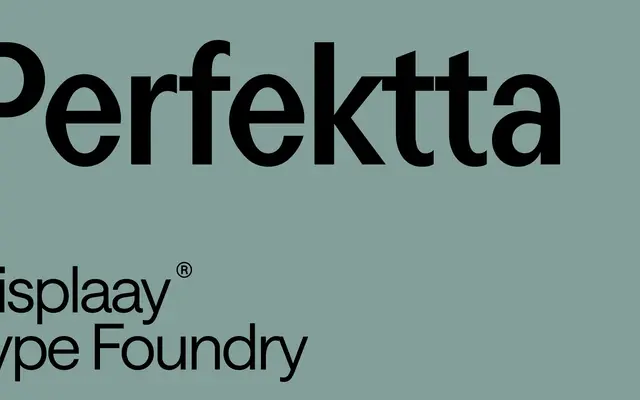
A narrow grotesque with eight weights and matching italics, built around a variable font with weight and slant axes, drawing visual inspiration from Italian road signage.
Perfektta is a condensed sans-serif in sixteen styles running from Thin to Black with full italic companions. The variable font offers two axes — weight and slant — giving designers continuous control across the range. Its showcase imagery leans heavily on Italian traffic signs and road typography, suggesting a design language rooted in functional wayfinding rather than editorial refinement.
Described explicitly as a narrow sans-serif typeface with grotesque characteristics; the tight proportions and geometric construction place it firmly in the condensed grotesque subcategory.